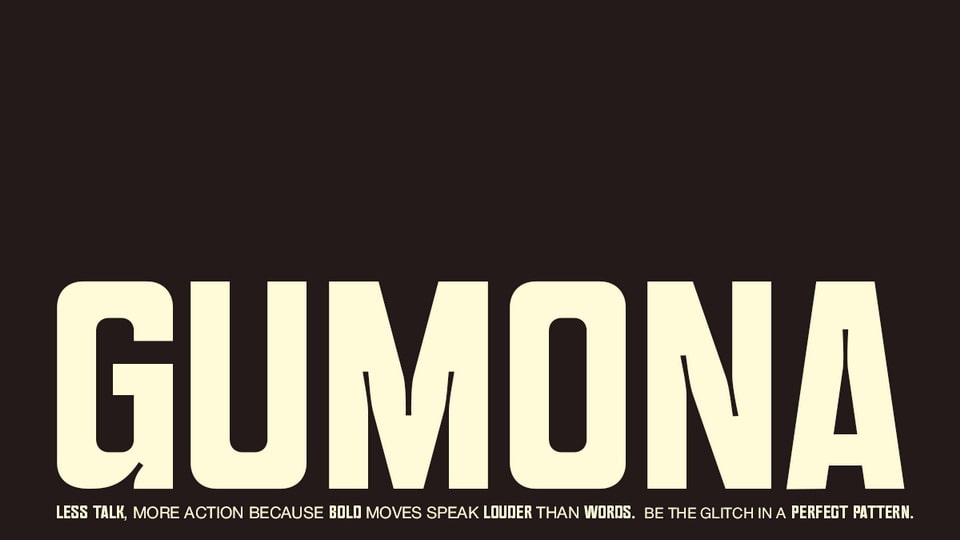
Download Gumona font, a bold, condensed display typeface designed to make a strong impression. With thick strokes, square corners, and tight letter spacing, it evokes the raw energy of urban culture.